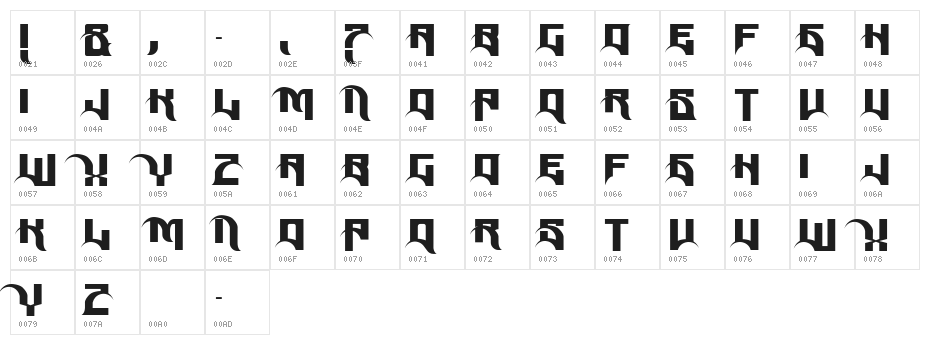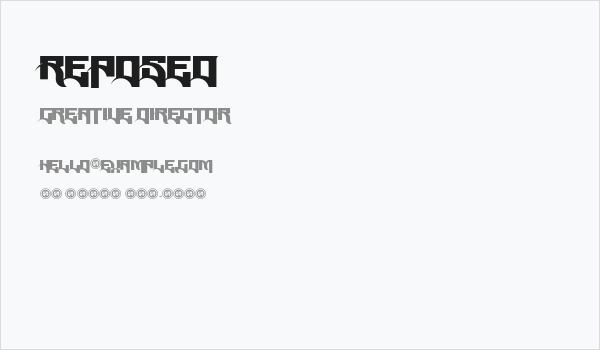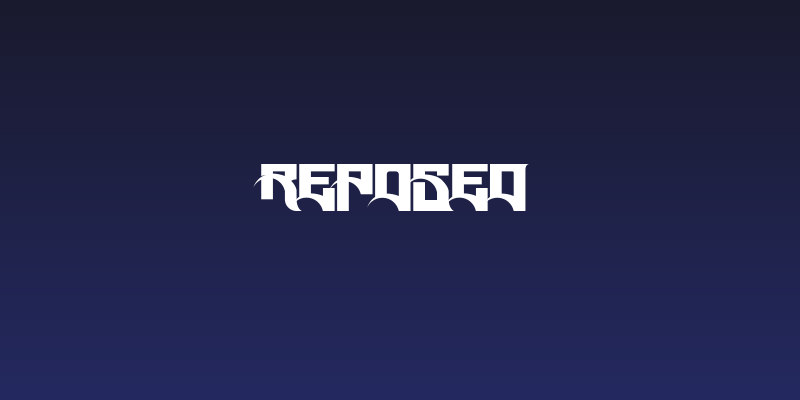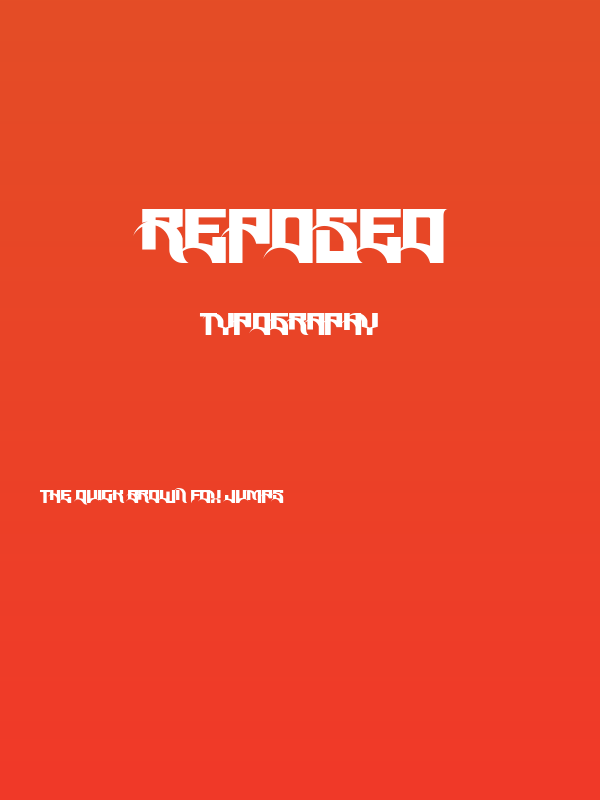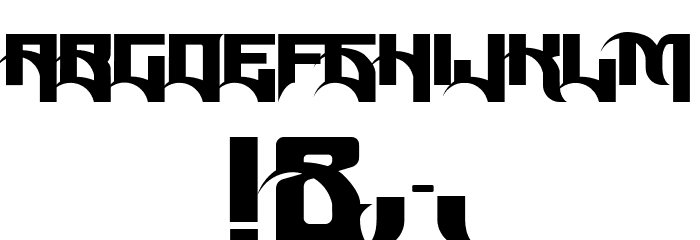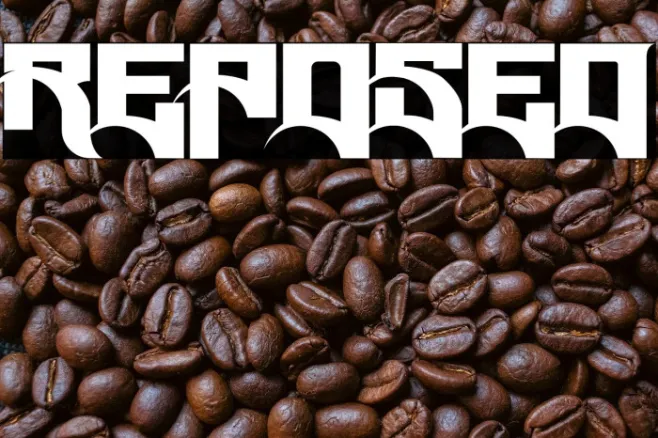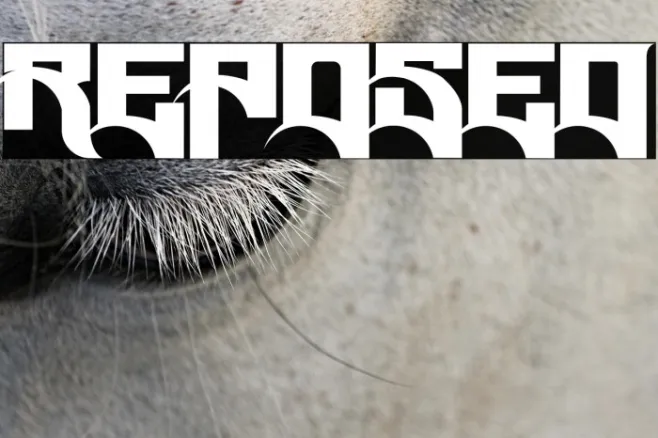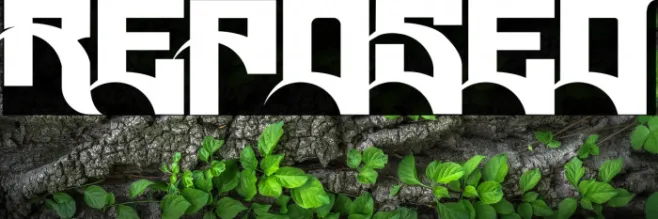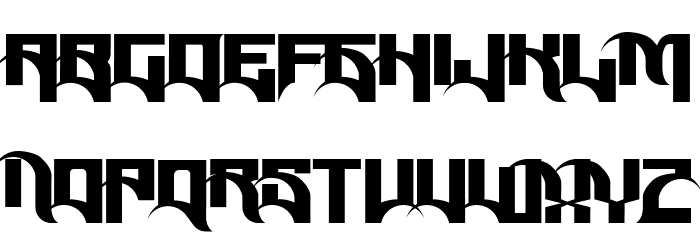
Reposed Font
Reposed Description
This font features a bold and striking design with a unique blend of sharp angles and curved elements, creating a visually captivating appearance. The uppercase letters are particularly distinctive, with exaggerated serifs and a high contrast between thick and thin strokes. The lowercase letters maintain the same boldness, ensuring consistency throughout the typeface. The numbers and special characters are designed to match the overall aesthetic, making them suitable for a variety of creative applications. The font's dramatic style makes it ideal for projects that require a strong visual impact.
| Proposed Projects | Ideal for branding, posters, album covers, and any project requiring a bold statement. |